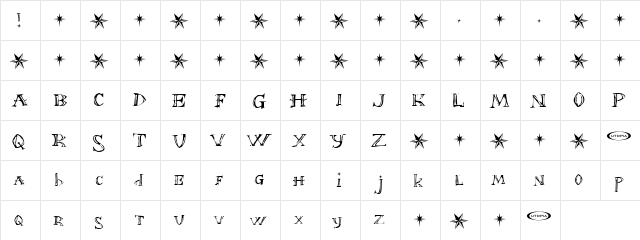
Font in a Red Suit The Christmas Font
Design Context for Font in a Red Suit Typeface
Font in a Red Suit is a composed and adaptable typeface that performs quietly and consistently across a wide range of design contexts.